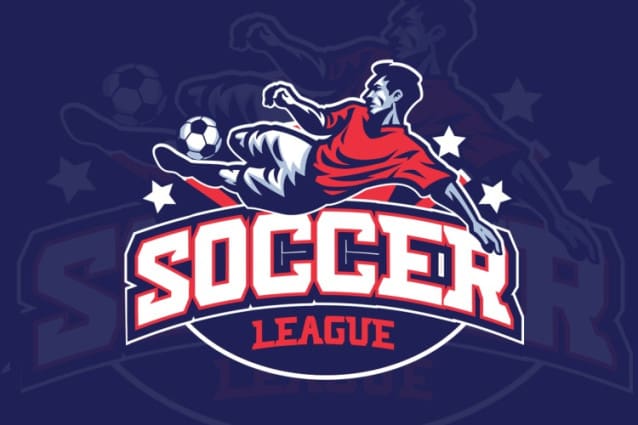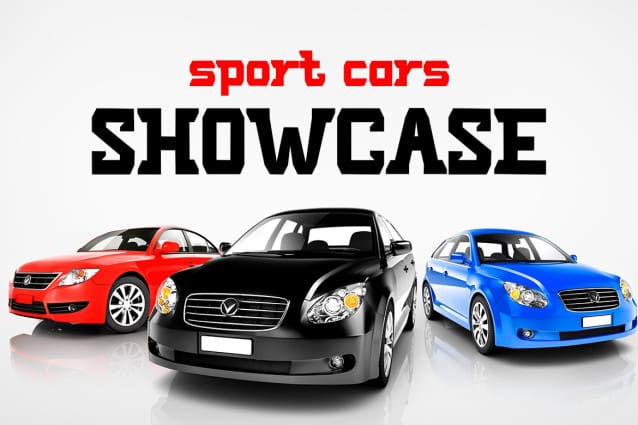
Varcity Display Font
Varcity Display Font, where boldness meets captivating innovation! Immerse yourself in the vibrant realm of Varcity, where each letter encapsulates the essence of modernity and adventure. With its sleek design and futuristic flair, Varcity Display  stands as the premier font choice for those seeking to infuse their projects with a touch of ‘maco’ style and gaming-inspired charm. Whether crafting dynamic logos or captivating headlines, Varcity serves as a testament to daring creativity, poised to elevate your designs to new heights. Experience the thrill of Varcity today and unleash the power of innovation in every stroke.